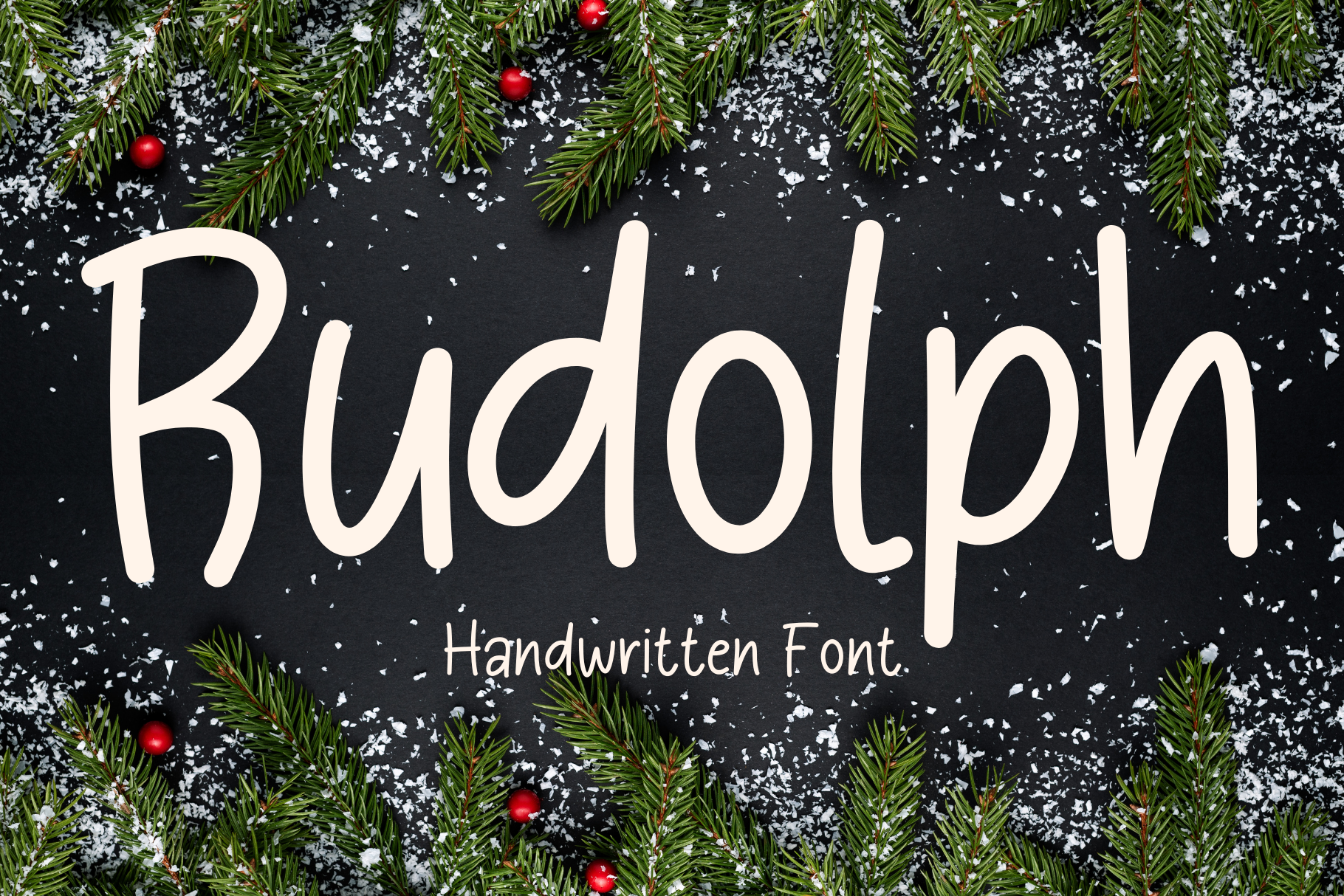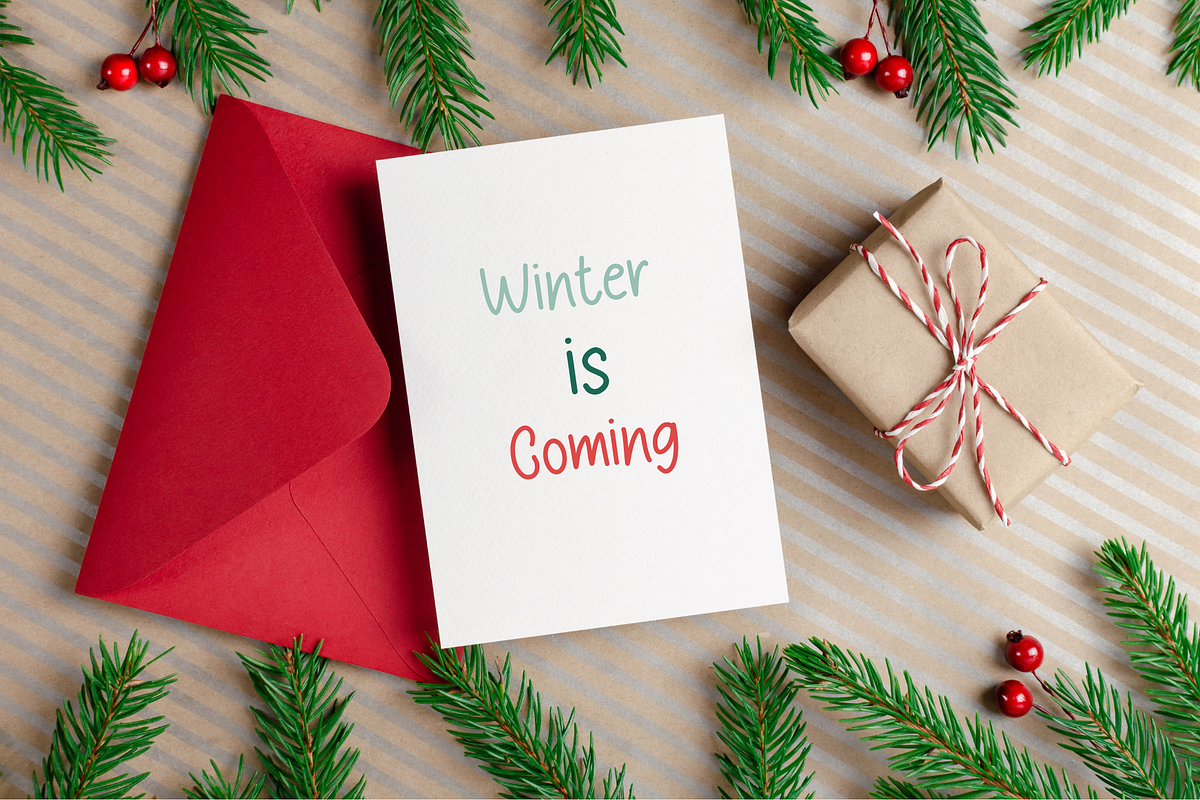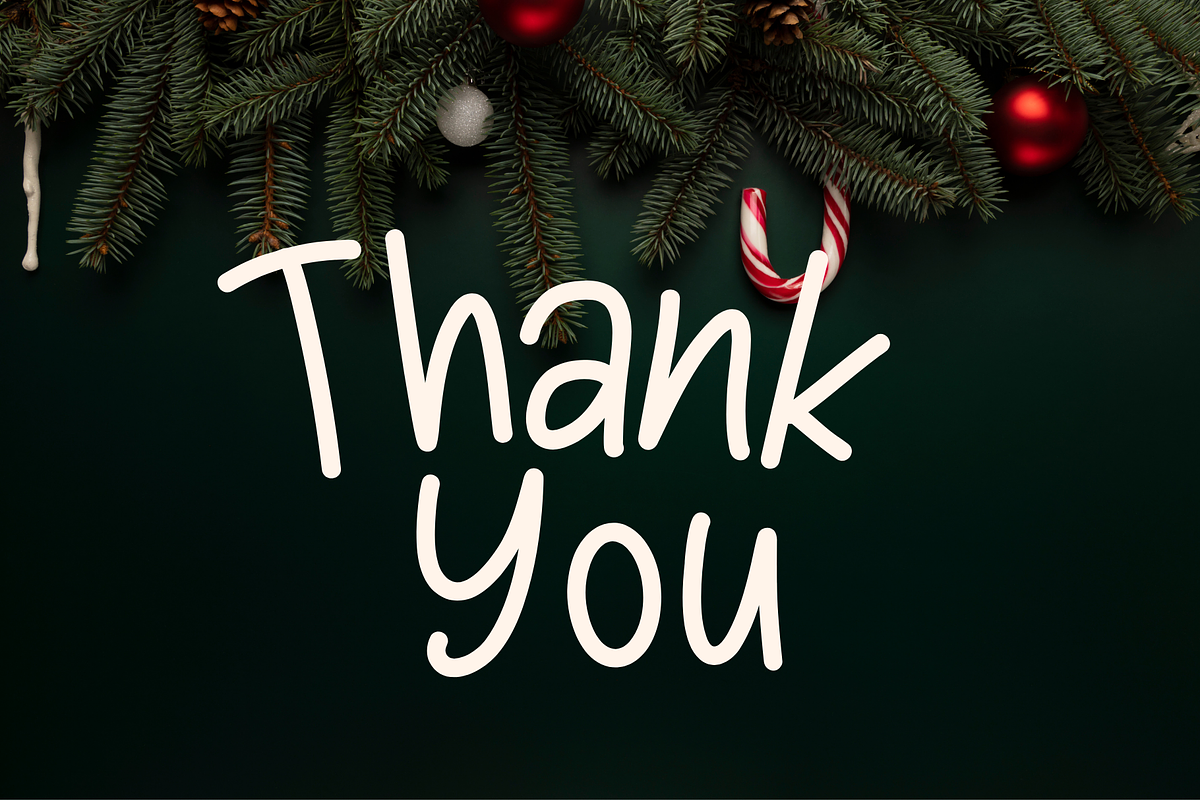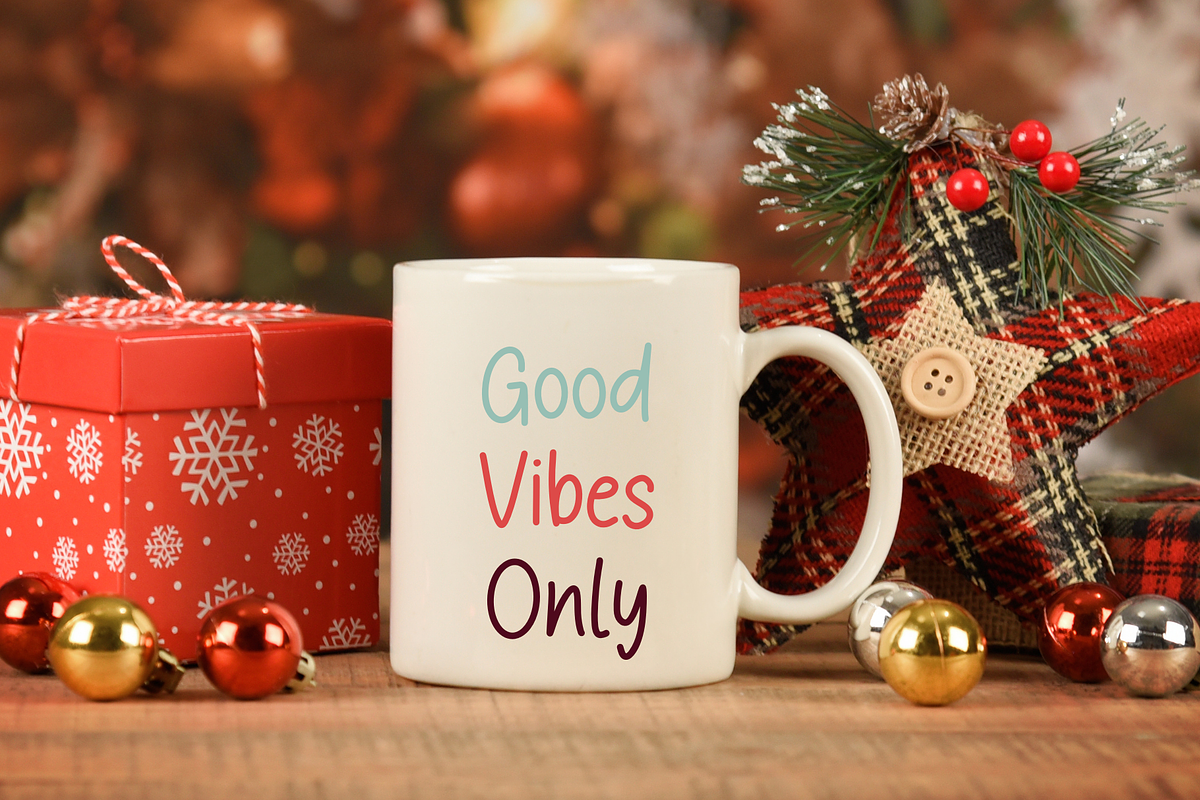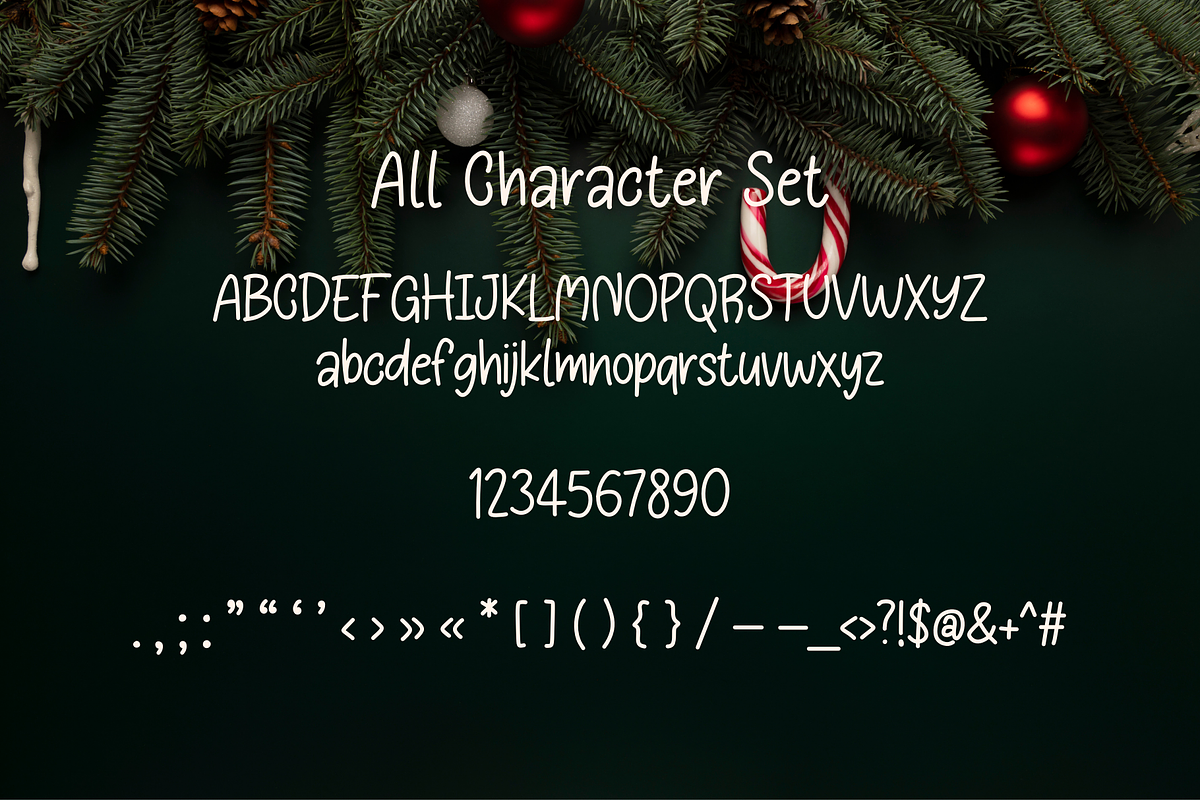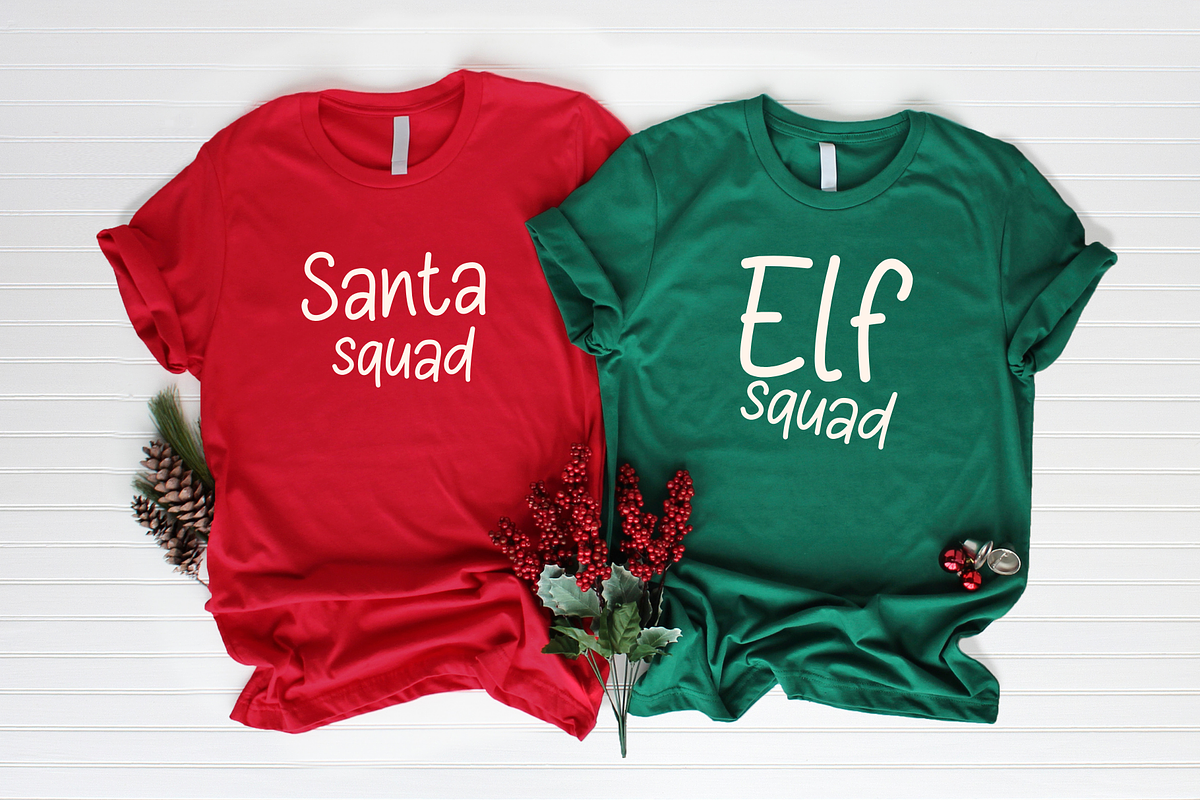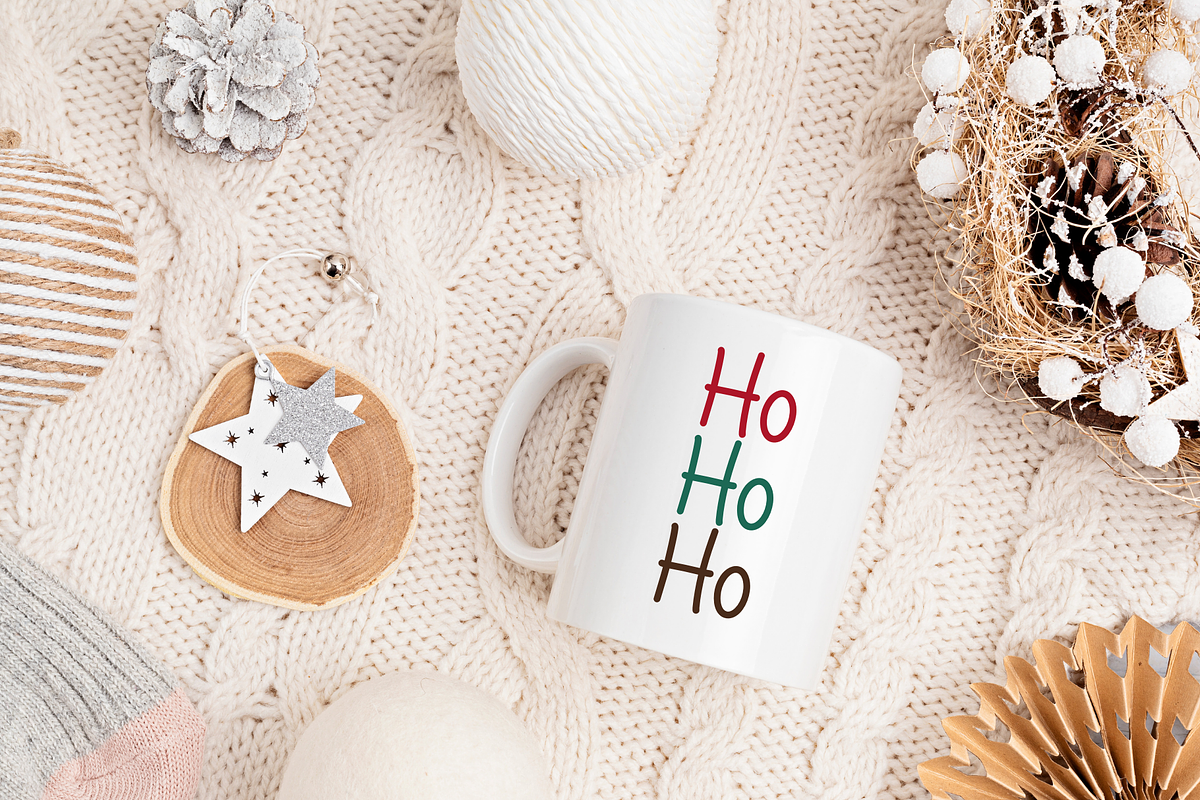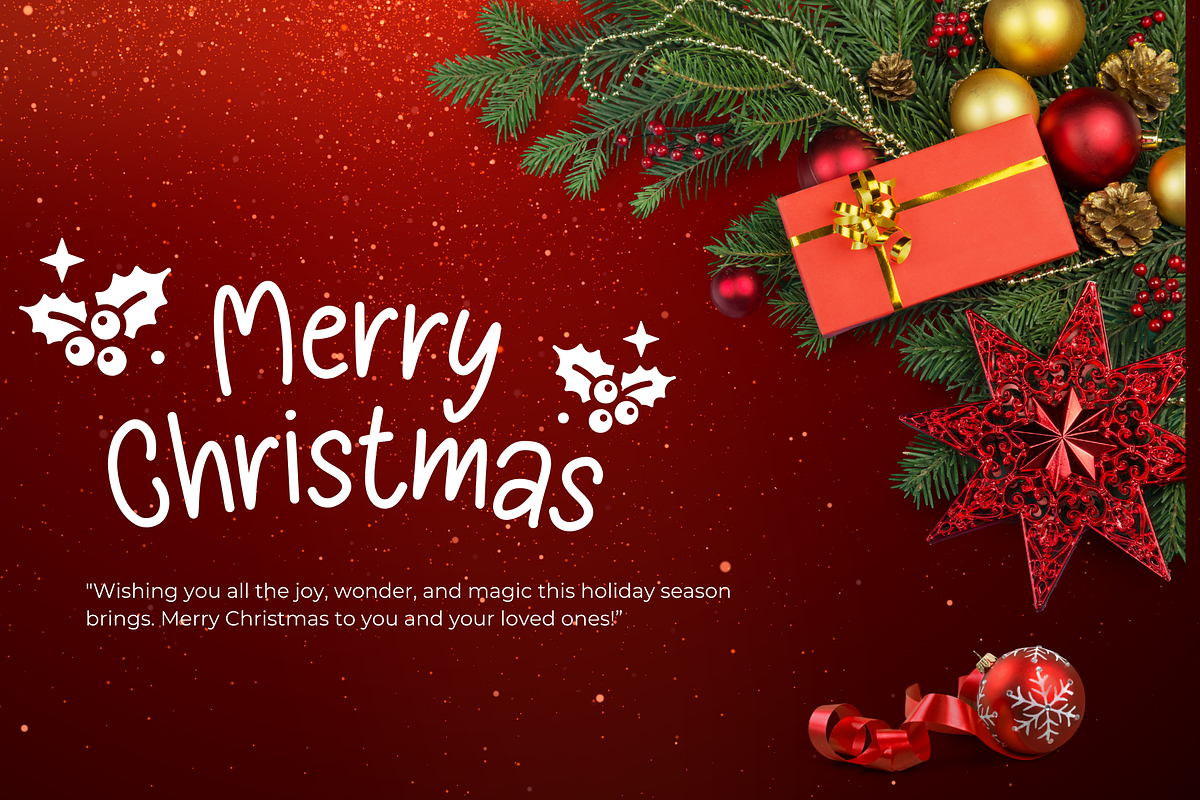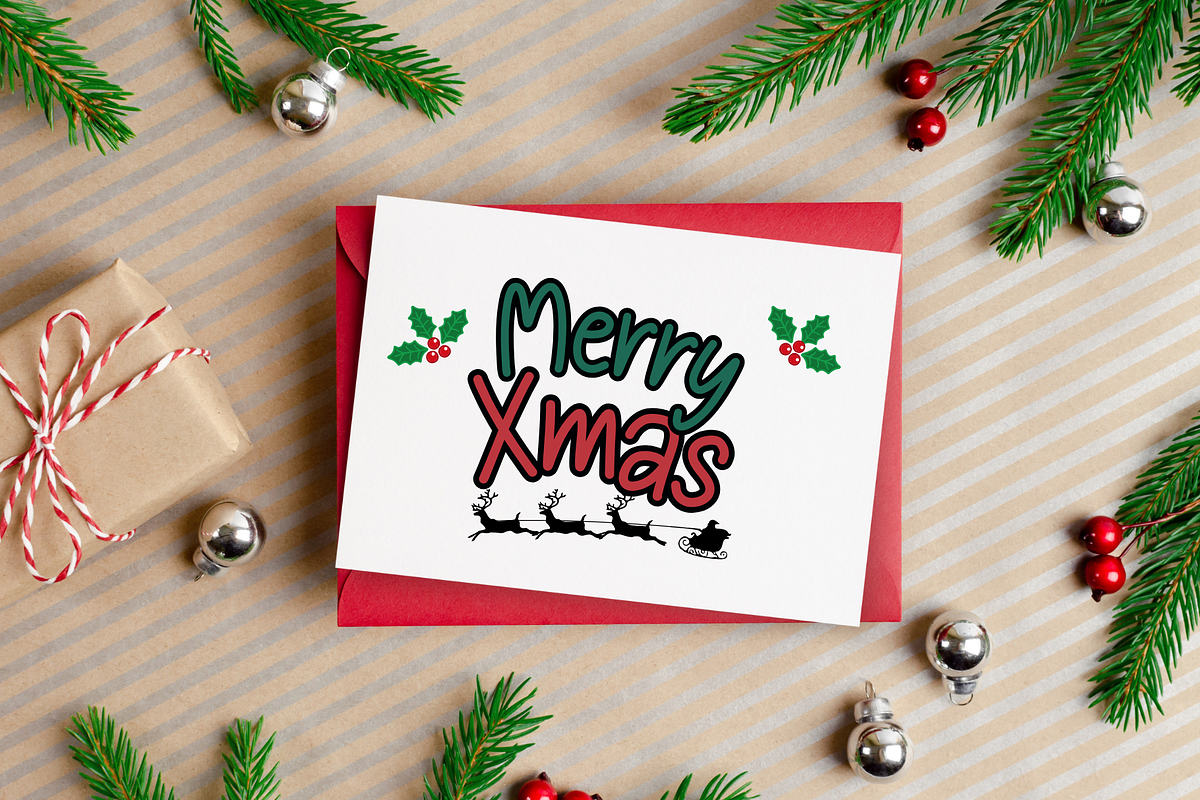
Rudolph is a handwritten font
Rudolph is a handwritten font. It embodies playfulness and authenticity and is the perfect choice for all your favorite projects, or even for blog posts, logos, branding, ads, invitations, greeting cards, planners, photo albums, decorations, and much more. Add it to any of your designs, and enjoy the results!